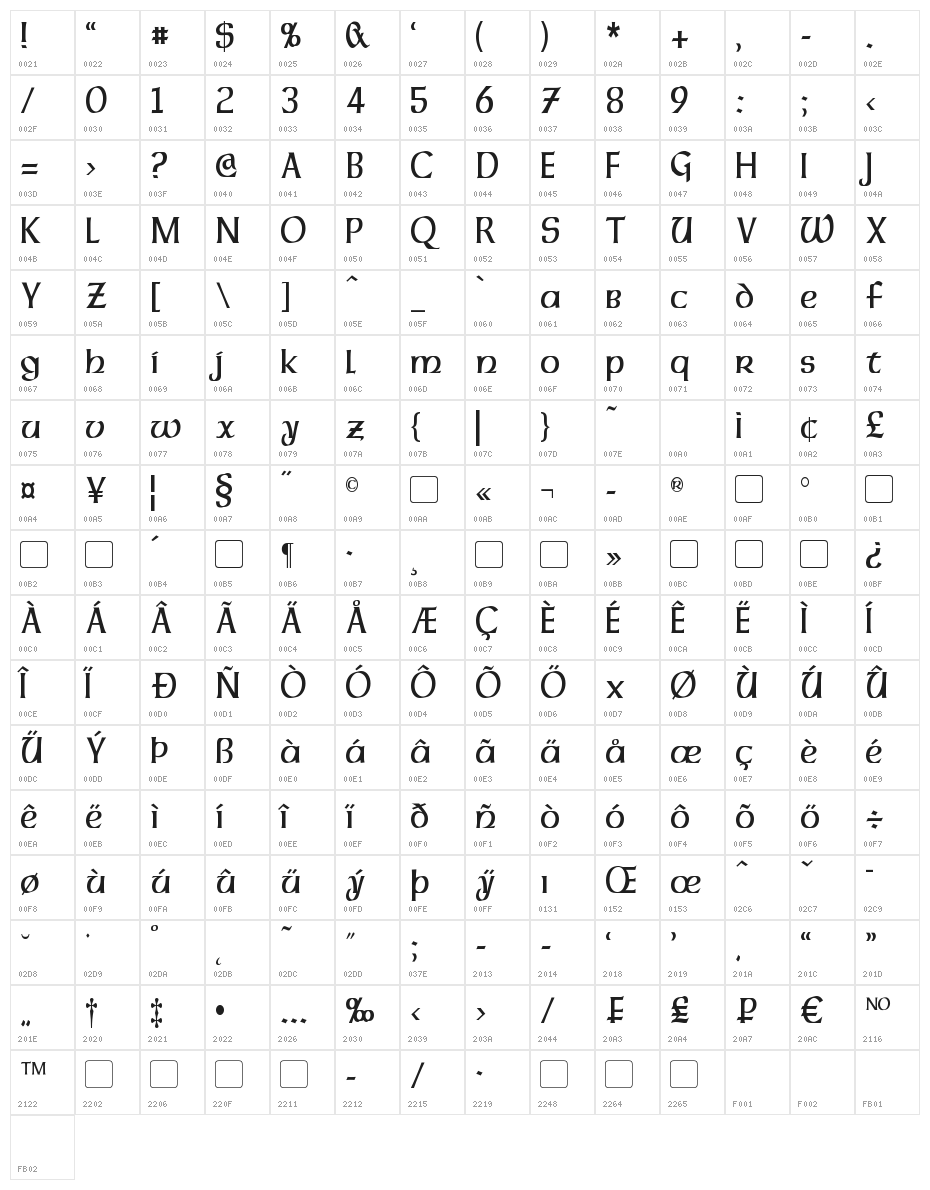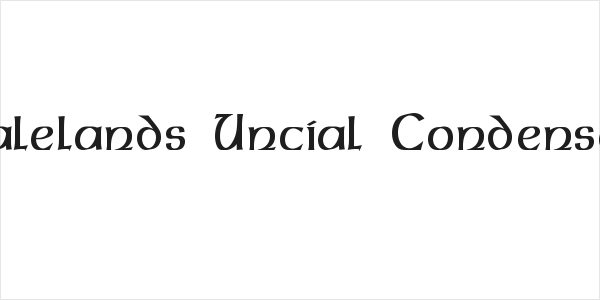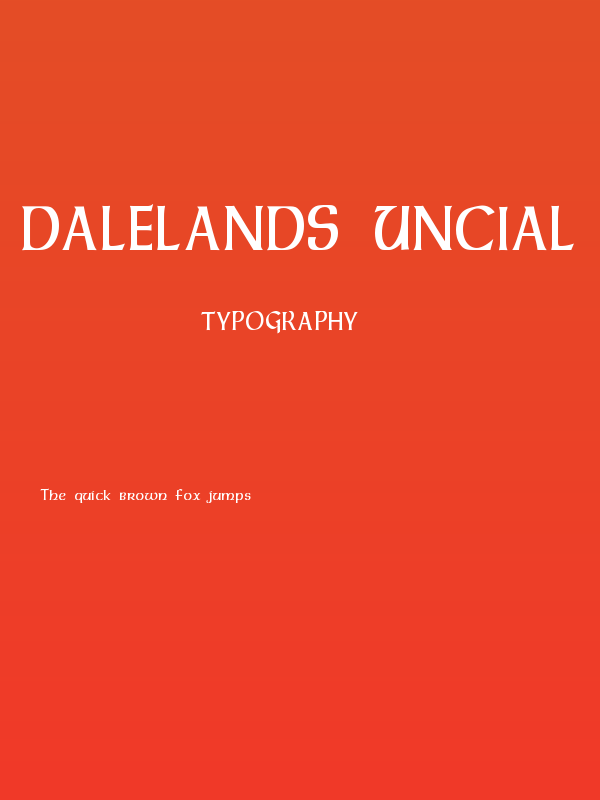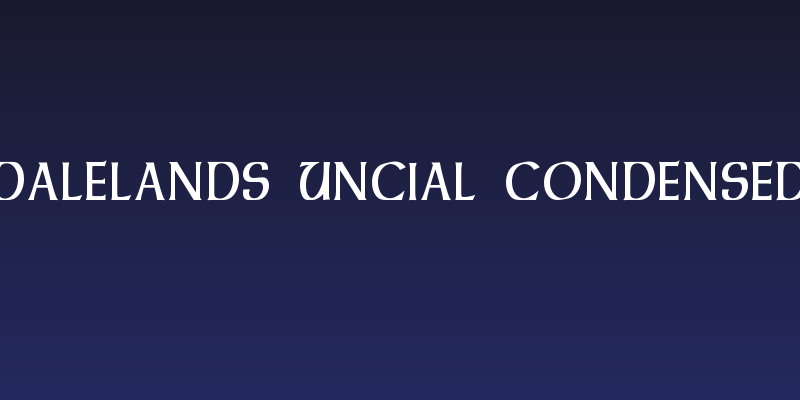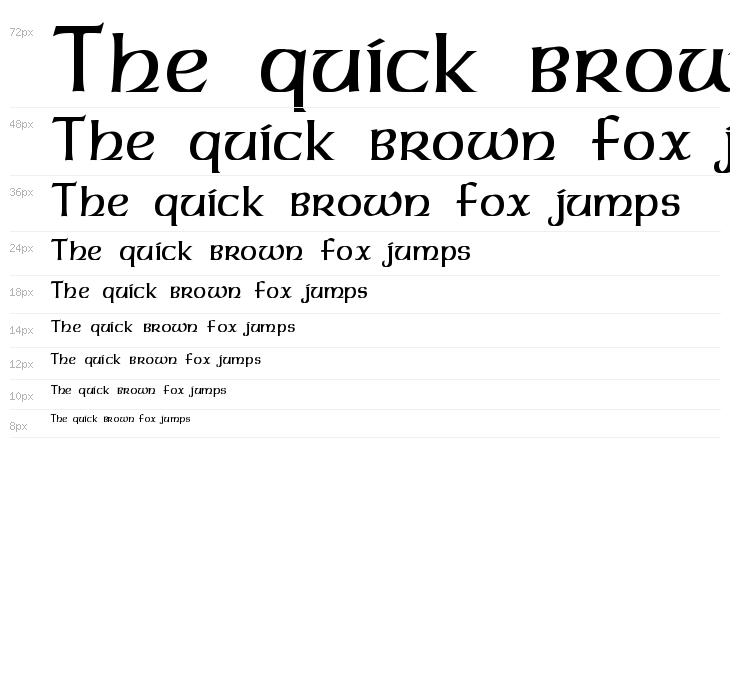
Dalelands Uncial Condensed Font
Dalelands Uncial Condensed Description
This font features a unique blend of historical and modern elements, characterized by its uncial style with a condensed form. The uppercase letters exhibit a distinct medieval flair, with rounded edges and a slight tilt, reminiscent of ancient manuscripts. The lowercase letters maintain this traditional feel, yet are more streamlined for contemporary use. Numbers and special characters are crafted with the same attention to detail, ensuring consistency across the typeface. The overall design is both decorative and functional, making it suitable for a variety of creative applications.
| Use Case | Headlines, Logos, Decorative text |
| Proposed Projects | Ideal for fantasy-themed projects, historical documents, book covers, and decorative headings. |